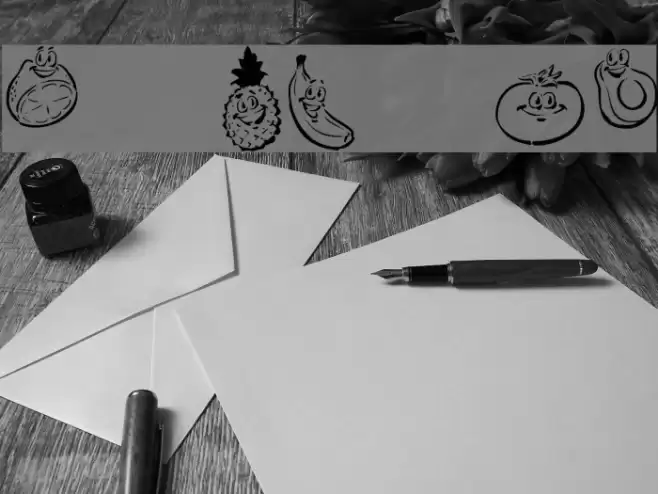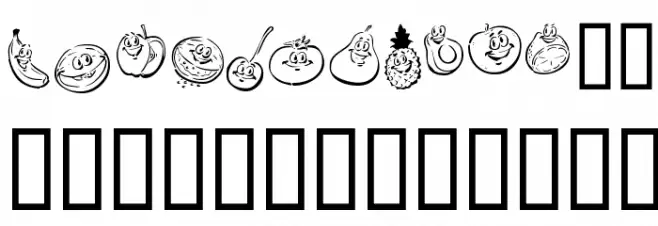
KR Happy Fruit Font
KR Happy Fruit Description
This playful and whimsical font features a series of cartoonish fruit characters, each with a unique expression and personality. The characters are drawn with bold, smooth lines and exhibit a hand-drawn, illustrative style. The font is highly decorative, with each letter represented by a different fruit character, making it ideal for projects that require a fun and lighthearted touch. The characters are well-spaced, ensuring readability despite their intricate designs. This font is perfect for children's books, playful branding, or any project that seeks to convey joy and creativity.
A whimsical, cartoonish font featuring playful fruit characters from Uncategorized fonts.
- Proposed Projects: Ideal for children's books, playful branding, party invitations, and creative posters.
- Overall Style: Playful, Whimsical, Decorative